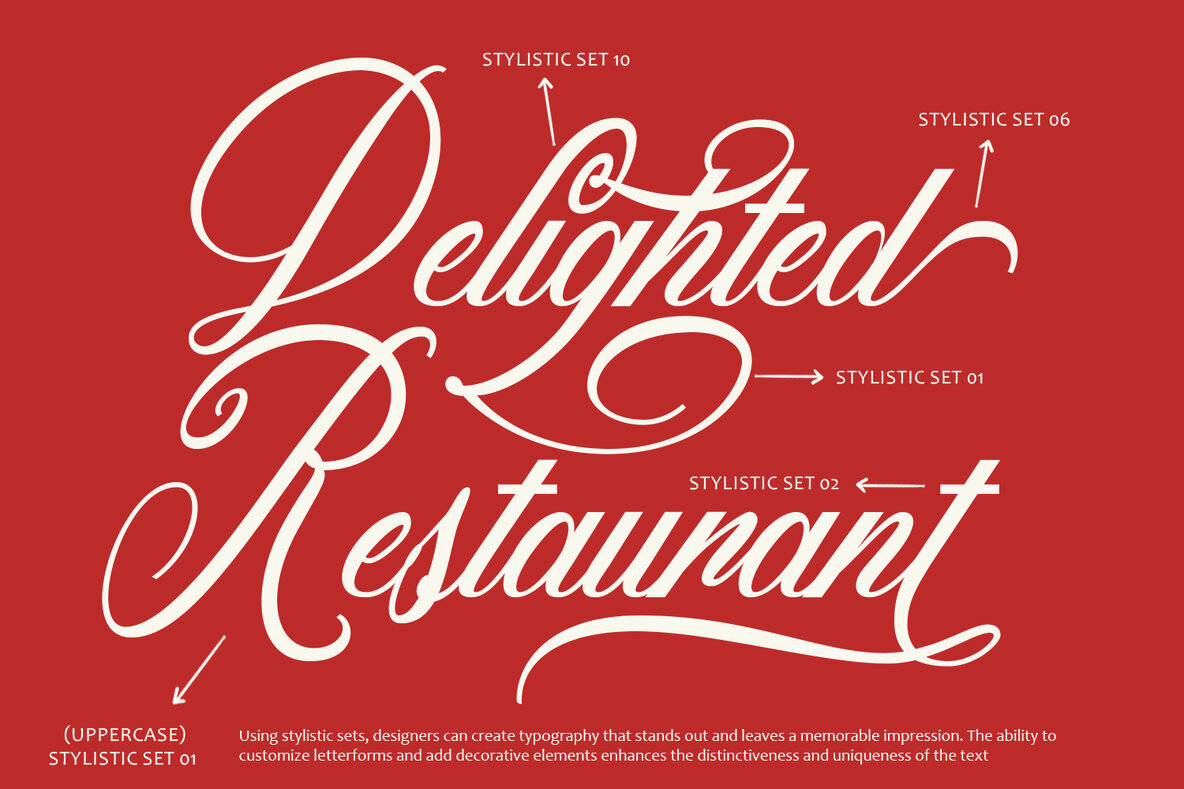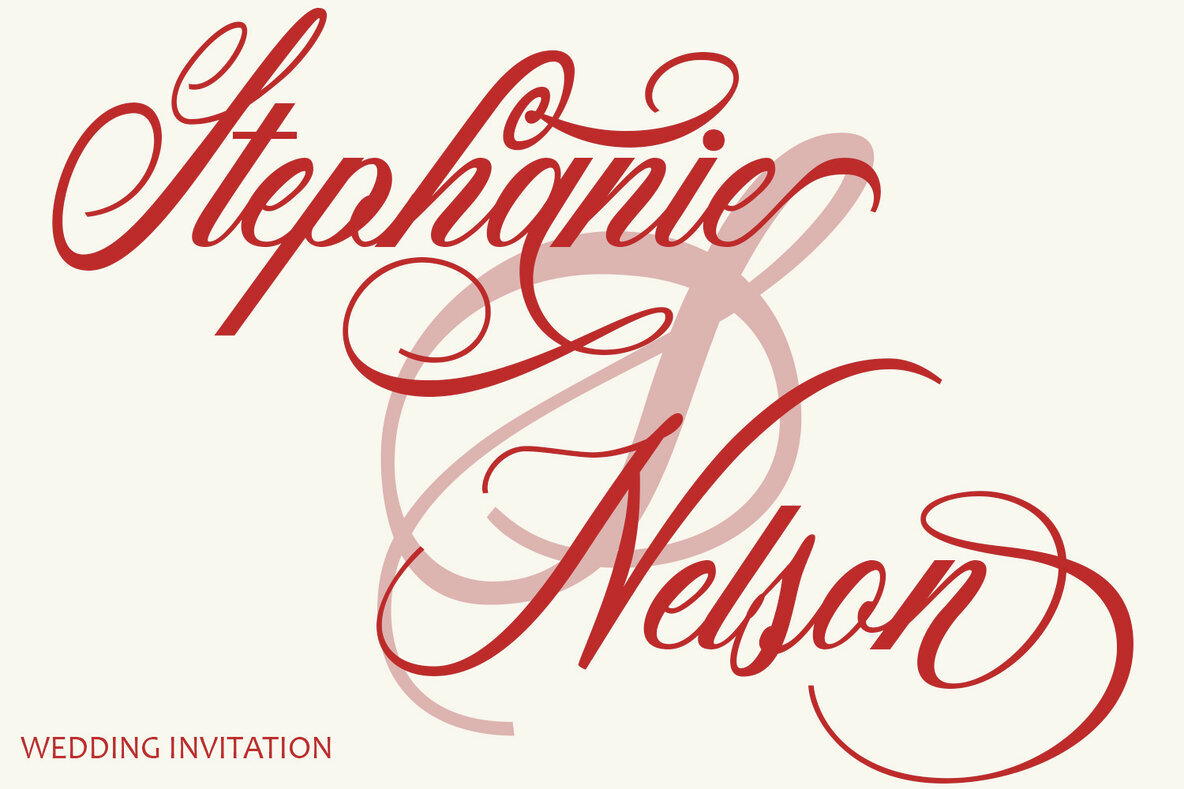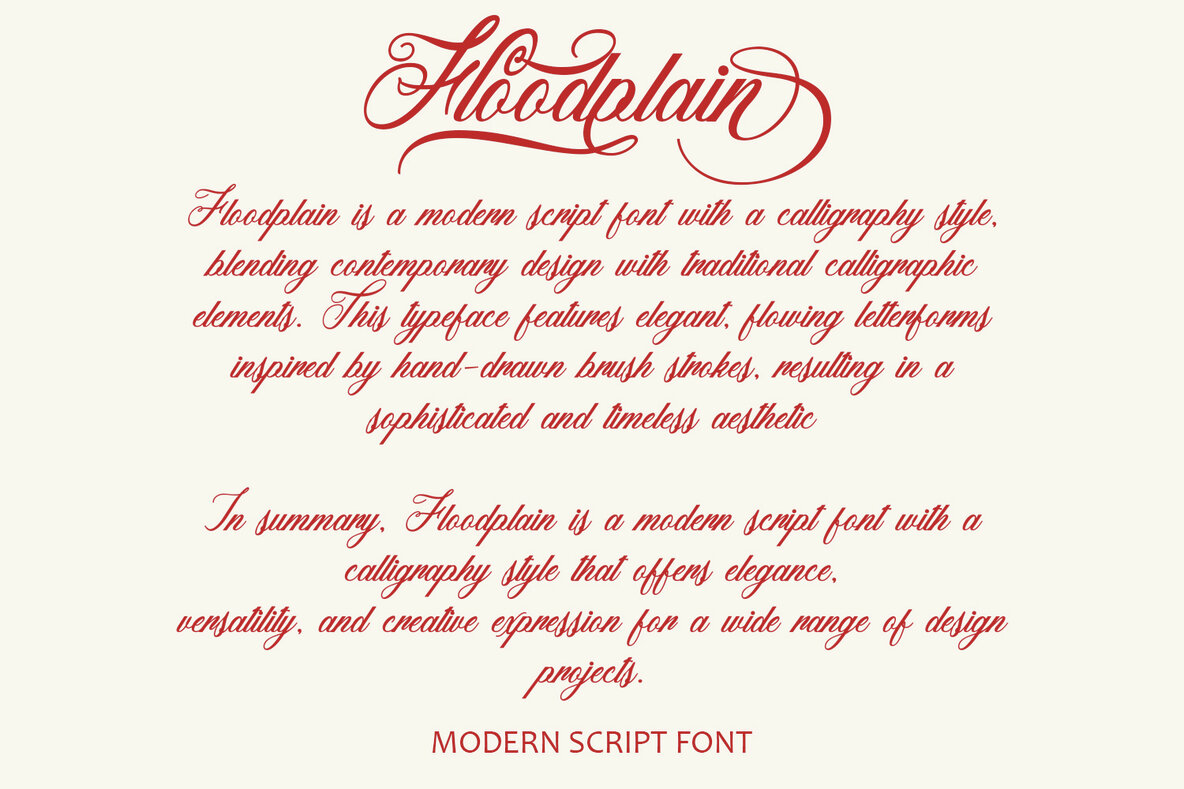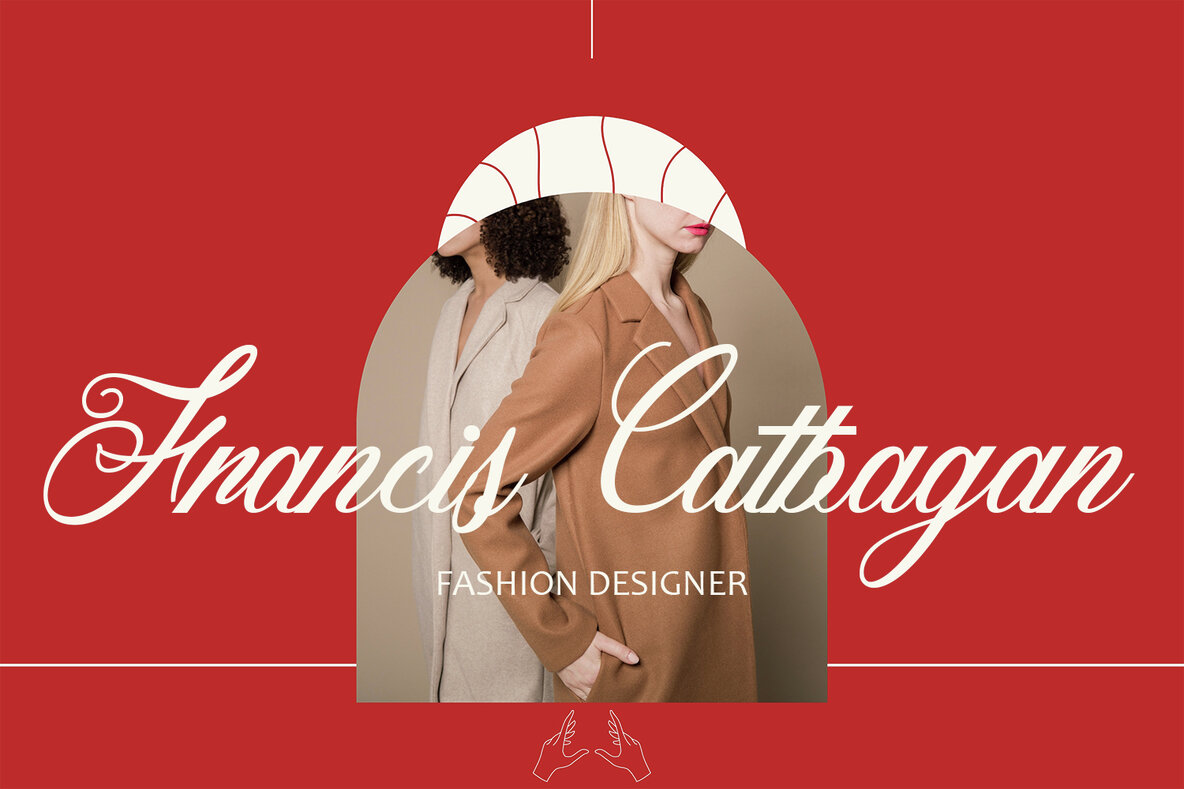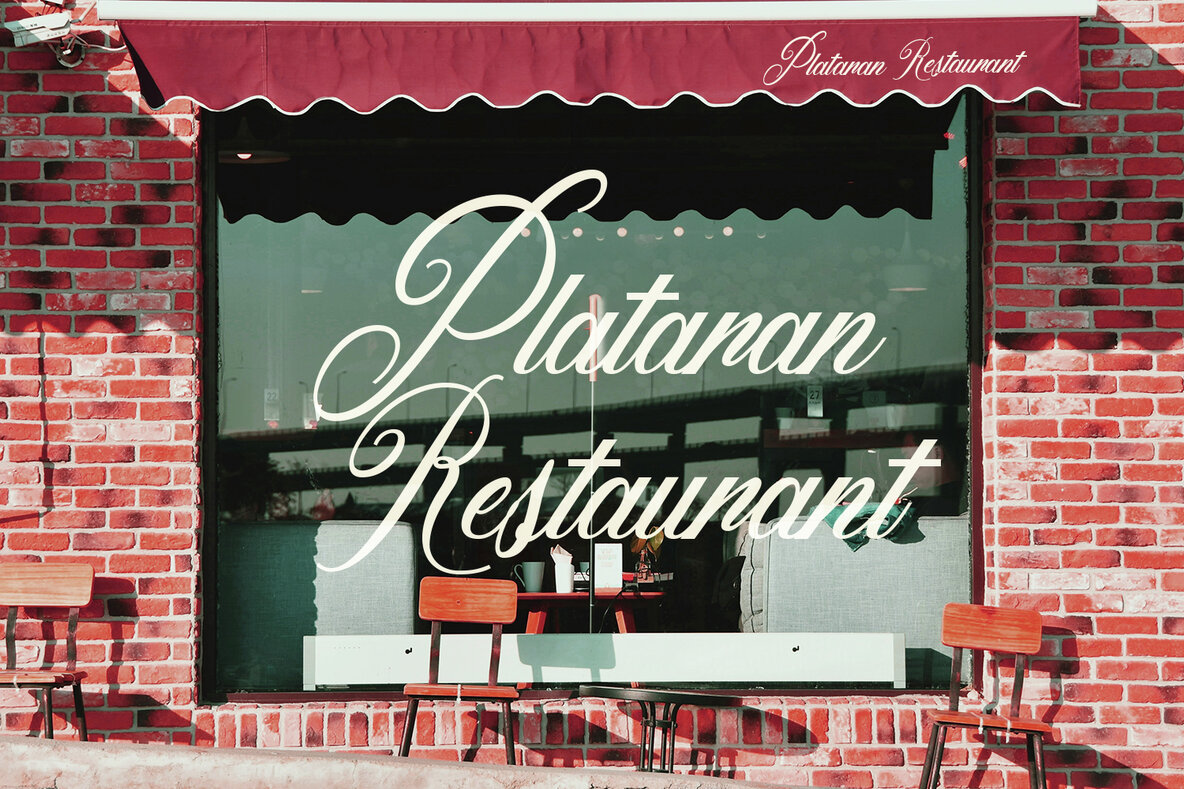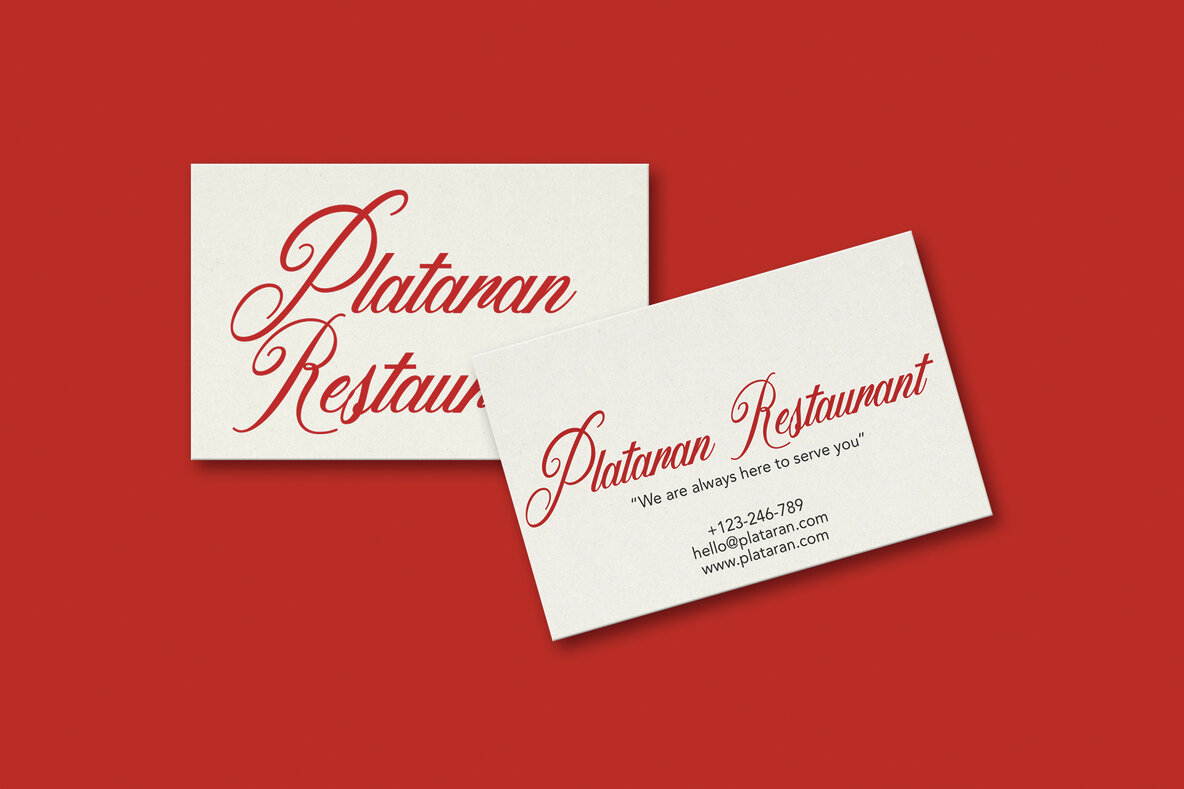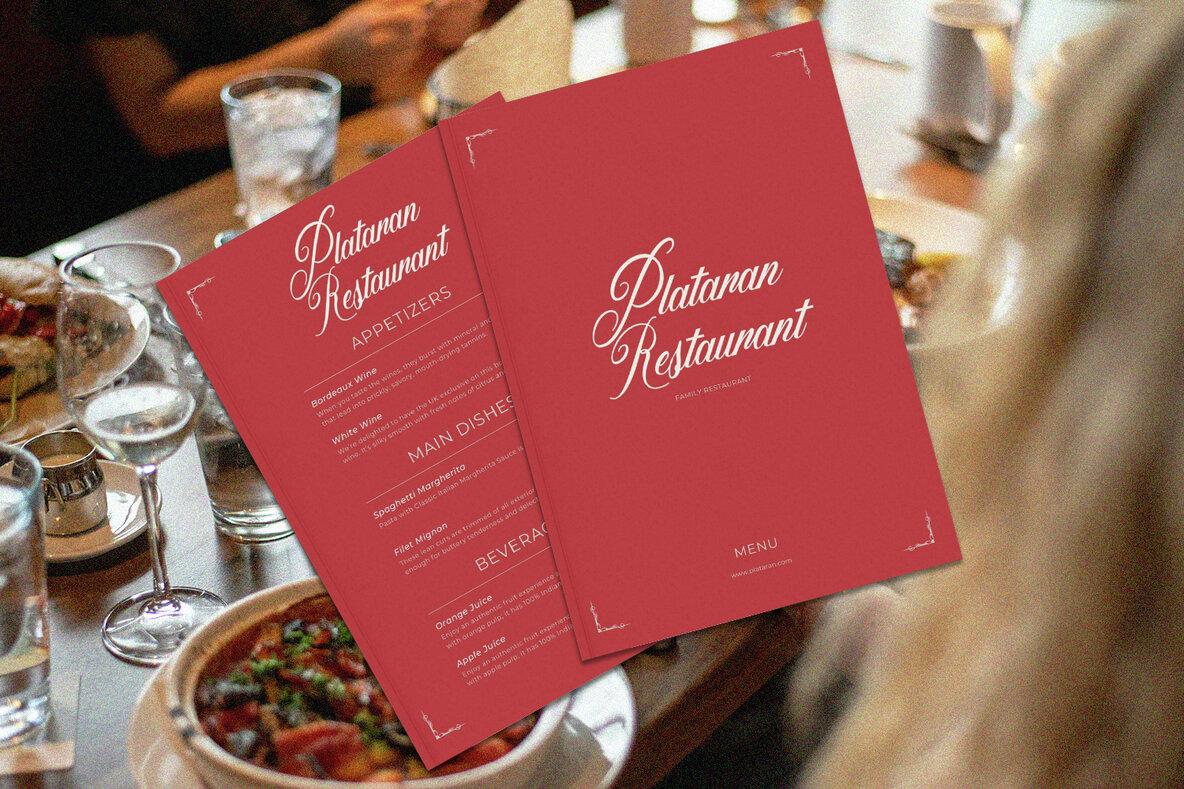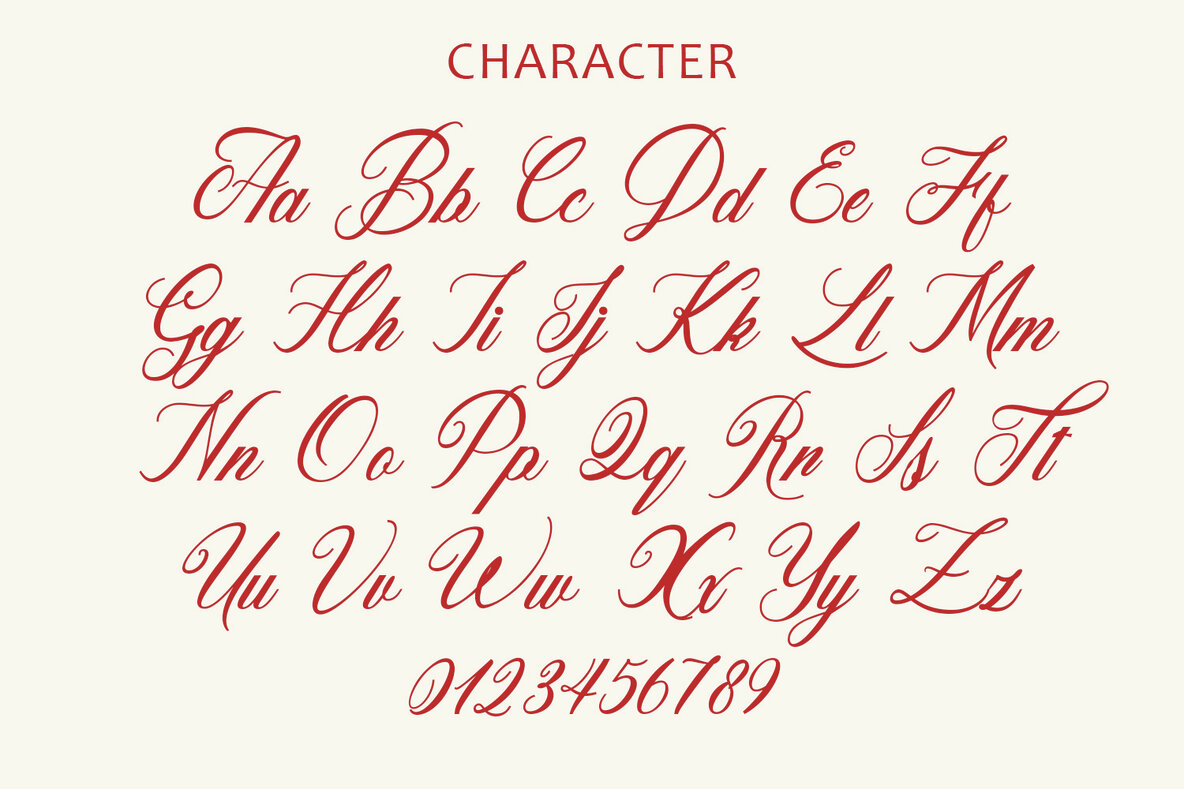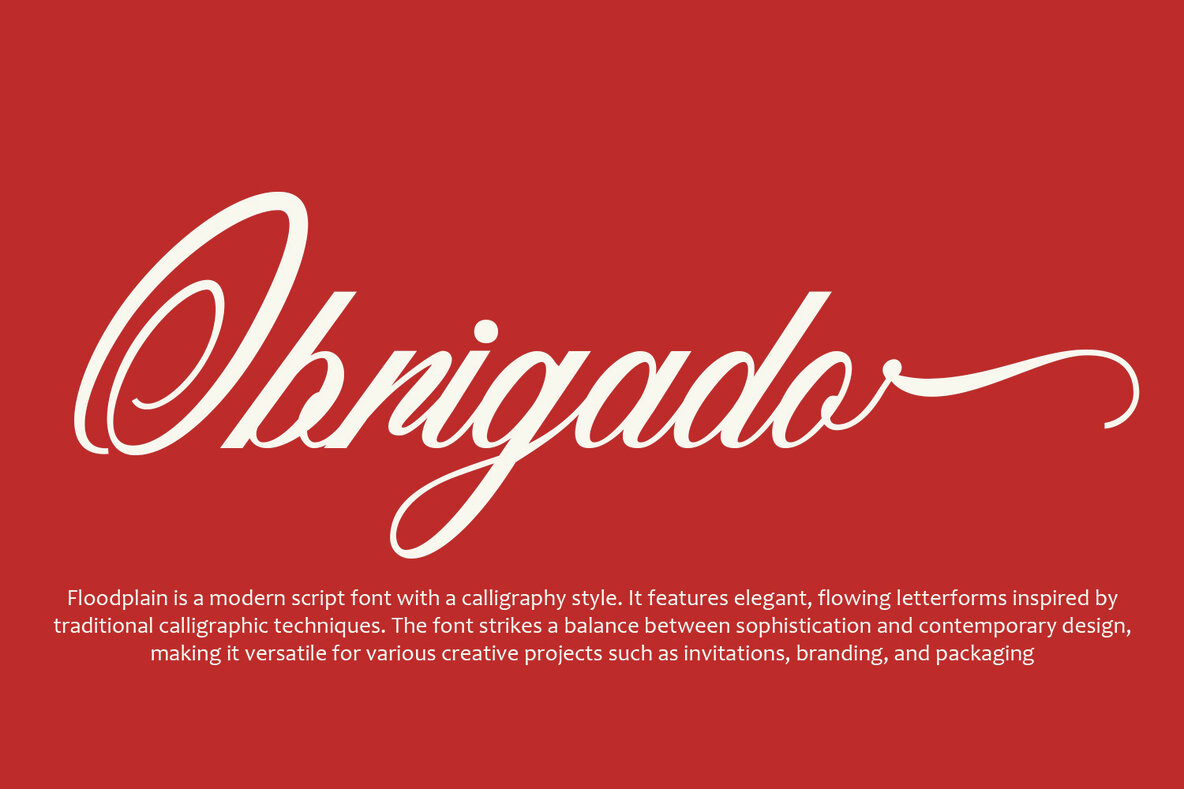
Floodplain is a modern script font with a calligraphy style, blending contemporary design with traditional calligraphic elements. This typeface features elegant, flowing letterforms inspired by hand-drawn brush strokes, resulting in a sophisticated and timeless aesthetic. The Floodplain font family offers versatility with its range of weights and styles, making it suitable for various design applications. Key Features: In summary, Floodplain is a modern script font with a calligraphy style that offers elegance, versatility, and creative expression for a wide range of design projects. With its timeless appeal and contemporary design elements, Floodplain is a valuable asset for designers seeking to add sophistication and charm to their typographic compositions.